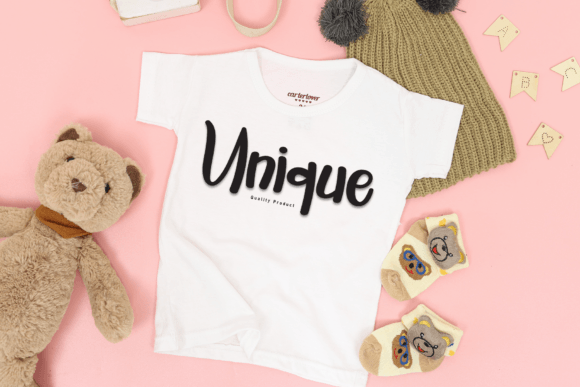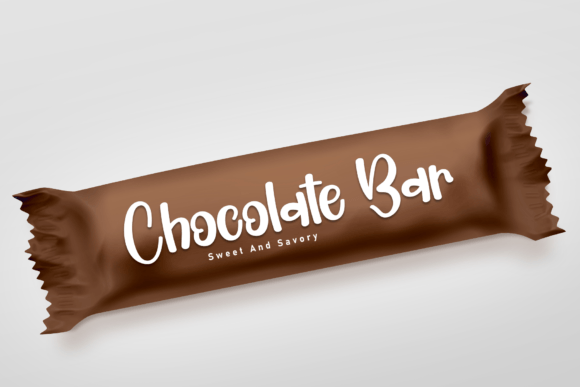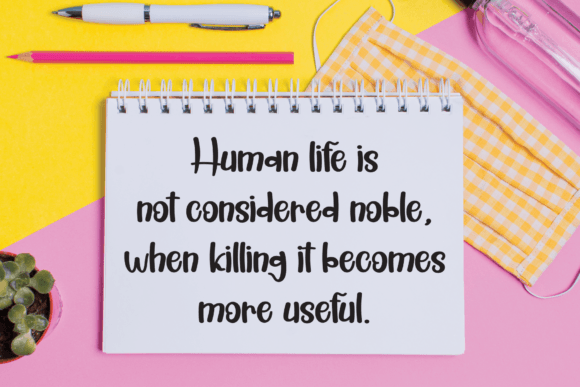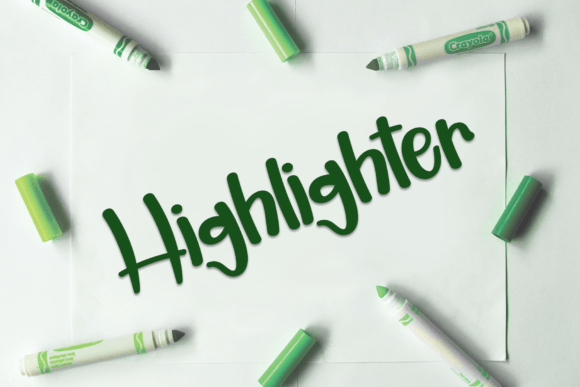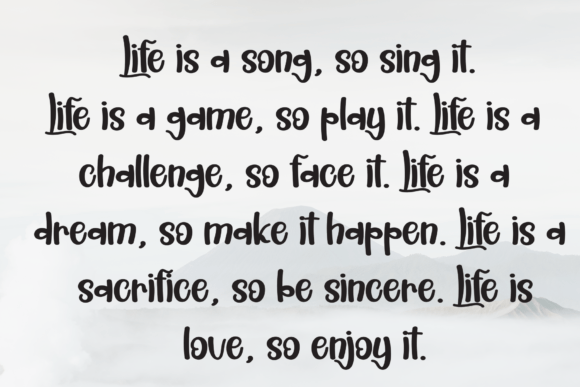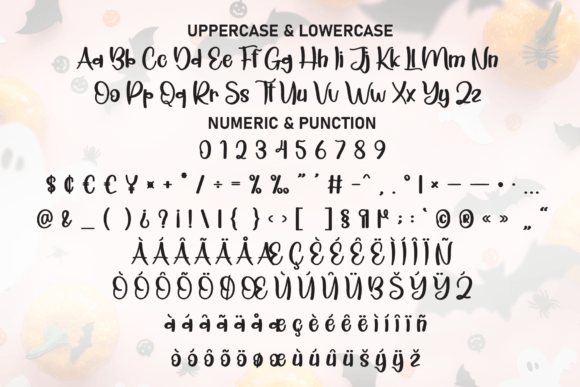
Happy Halloween Font: Add a Spooky yet Friendly Touch to Your Designs
As the spookiest day of the year approaches, designers and crafters are on the lookout for the perfect font to add a touch of Halloween magic to their creations. Look no further than the Happy Halloween font, a delightful handwritten font that brings a warm, personal touch to your designs. With its smooth and flowing letters, this font creates a friendly and inviting feel that’s perfect for greeting cards, invitations, and anything that needs a bit of charm.
The Perfect Font for Halloween Designs
Happy Halloween font is a versatile typeface that can be used for a wide range of design projects, from spooky Halloween invitations to cute pumpkin carvings. Its unique blend of smooth lines and playful curves makes it an excellent choice for designers who want to add a personal touch to their work. Whether you’re creating a DIY craft project or a professional design, this font is sure to impress.
Key Features of Happy Halloween Font
- Handwritten style: Happy Halloween font is a handwritten font that adds a warm, personal touch to your designs.
- Smooth and flowing letters: The font’s smooth and flowing letters create a friendly and inviting feel that’s perfect for greeting cards, invitations, and more.
- Perfect for Halloween designs: With its playful and spooky vibe, Happy Halloween font is the perfect choice for Halloween-themed designs.
- Easy to read: Despite its playful style, Happy Halloween font is easy to read, making it perfect for use in a variety of design projects.
Uses for Happy Halloween Font
Happy Halloween font is a versatile typeface that can be used for a wide range of design projects, including:
- Halloween invitations: Create spooky and inviting Halloween invitations that will set the tone for a howling good time.
- Greeting cards: Add a personal touch to your Halloween greeting cards with Happy Halloween font.
- Pumpkin carvings: Use Happy Halloween font to add a playful touch to your pumpkin carvings.
- DIY crafts: Happy Halloween font is perfect for use in DIY crafts, such as Halloween-themed signs, banners, and decorations.
Tips for Using Happy Halloween Font
Here are a few tips for using Happy Halloween font in your designs:
- Use it with other fonts: Happy Halloween font pairs well with other fonts, such as bold sans-serif fonts or script fonts.
- Experiment with colors: Try using Happy Halloween font in a variety of colors, such as orange, black, and purple, to add a spooky touch to your designs.
- Add graphics and illustrations: Happy Halloween font looks great when paired with graphics and illustrations, such as pumpkins, ghosts, and bats.
Happy Halloween font is a delightful handwritten font that’s perfect for adding a warm, personal touch to your designs. With its smooth and flowing letters, this font creates a friendly and inviting feel that’s perfect for Halloween-themed designs. Whether you’re a designer or a crafter, Happy Halloween font is sure to become a favorite in your font collection.